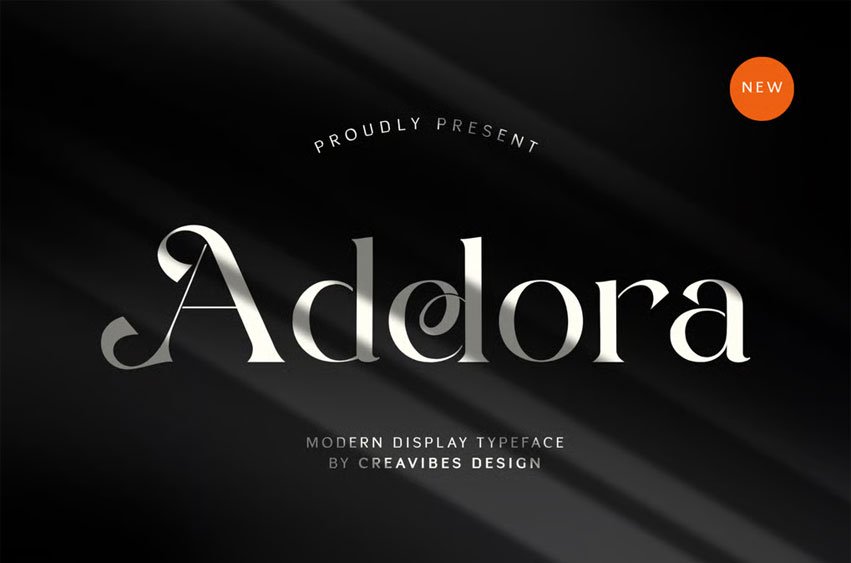
Adelora Font is a modern display font that blends elegance with a bold contemporary style. Featuring clean lines, balanced proportions, and a refined character, this font is perfect for branding, headlines, posters, packaging, and editorial designs.
Adelora delivers a strong visual presence while remaining stylish and versatile, making it ideal for both creative and professional projects.
- Regular & Italic styles
- Alternates & ligatures